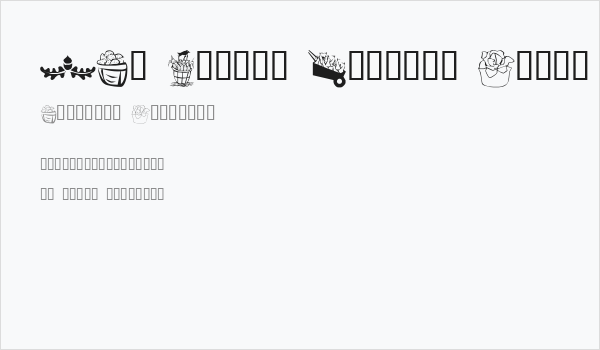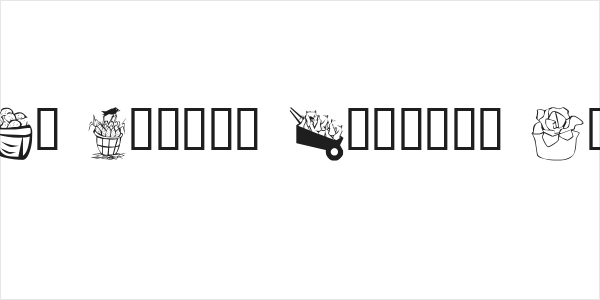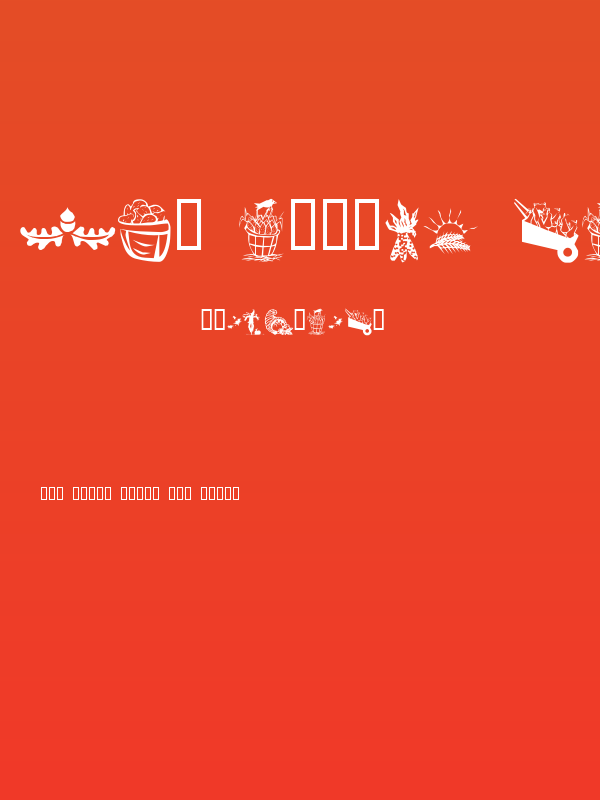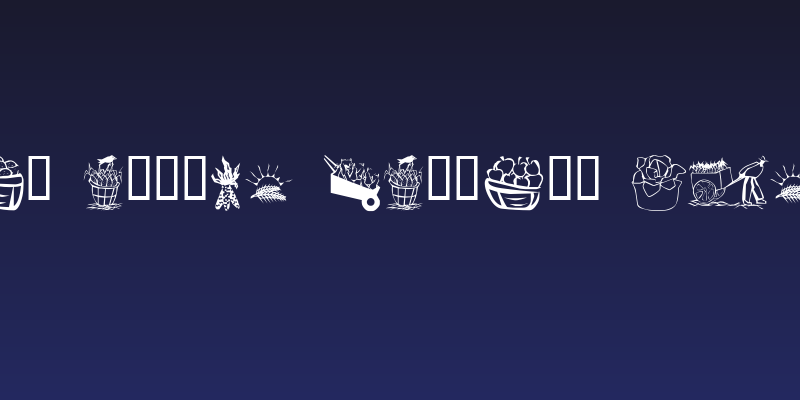
LCR Autumn Harvest Dings Font
LCR Autumn Harvest Dings Description
A decorative dingbat font featuring hand-drawn autumn and harvest-themed illustrations such as baskets, pumpkins, scarecrows, leaves, and cornucopias. The glyphs are detailed and whimsical, designed to evoke a festive fall atmosphere.
| Overall Style | Decorative, Whimsical, Seasonal |
| Use Case | Decorative elements, Themed graphics, Borders, Icons |
| Proposed Projects | Seasonal event flyers, Thanksgiving invitations, scrapbooking, classroom decorations, fall festival posters. |